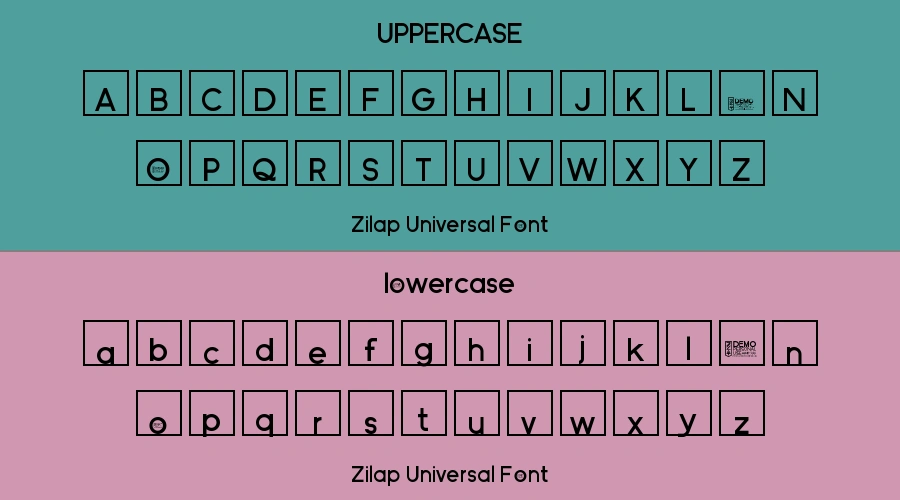
About Zilap Universal Font
Designed with precision, Zilap Universal Font merges graceful curves with reliability in every character. This versatility makes it particularly effective for classic books, where endurance and user trust directly impact communication quality. Each letterform demonstrates meticulous craftsmanship.
Technical excellence shines through elements like straight stems and oldstyle figures, enhancing typographic versatility. In captions settings, Zilap Universal Font proves its worth through superior body text reading. The thoughtful execution of joint detail and brand potential ensures professional results.